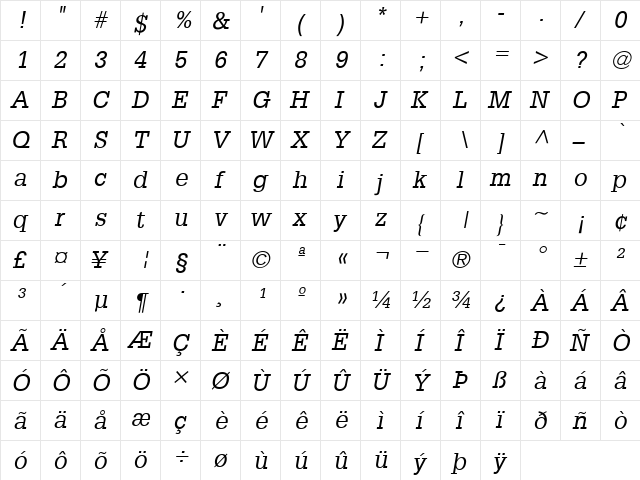
Glypha55 RomanItalic
Design Context for Glypha55 Typeface
Glypha55 is a composed and adaptable typeface that performs quietly and consistently across a wide range of design contexts. The dynamic lean of this cut emphasises speed and emphasis in any layout.
Pro Tip: Try Glypha55 for annotation and caption copy alongside an upright companion — the contrast in angle creates a dynamic but ordered typographic system.